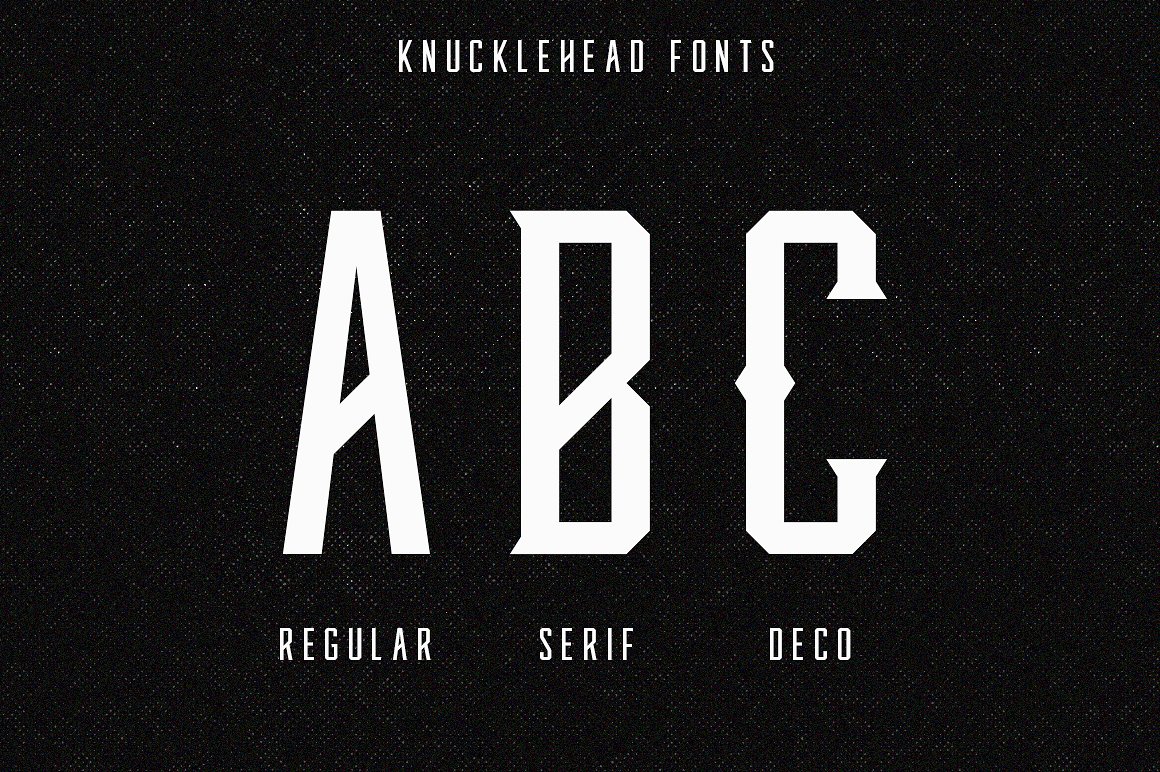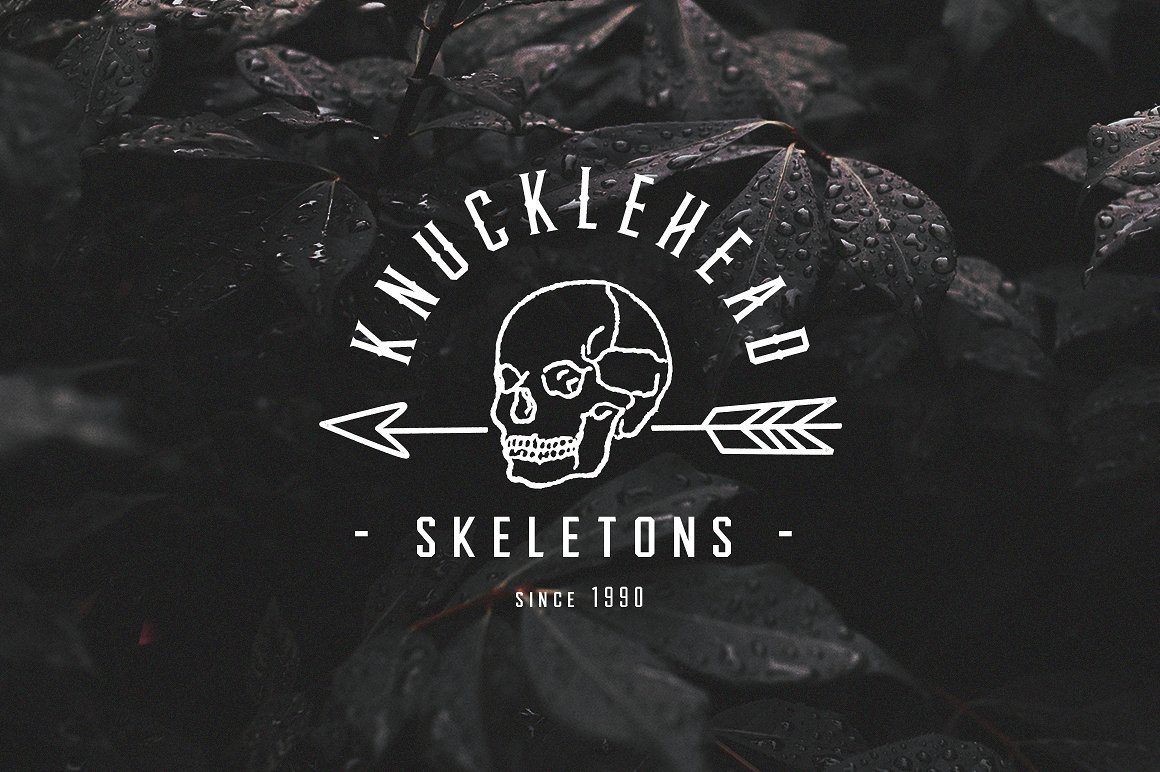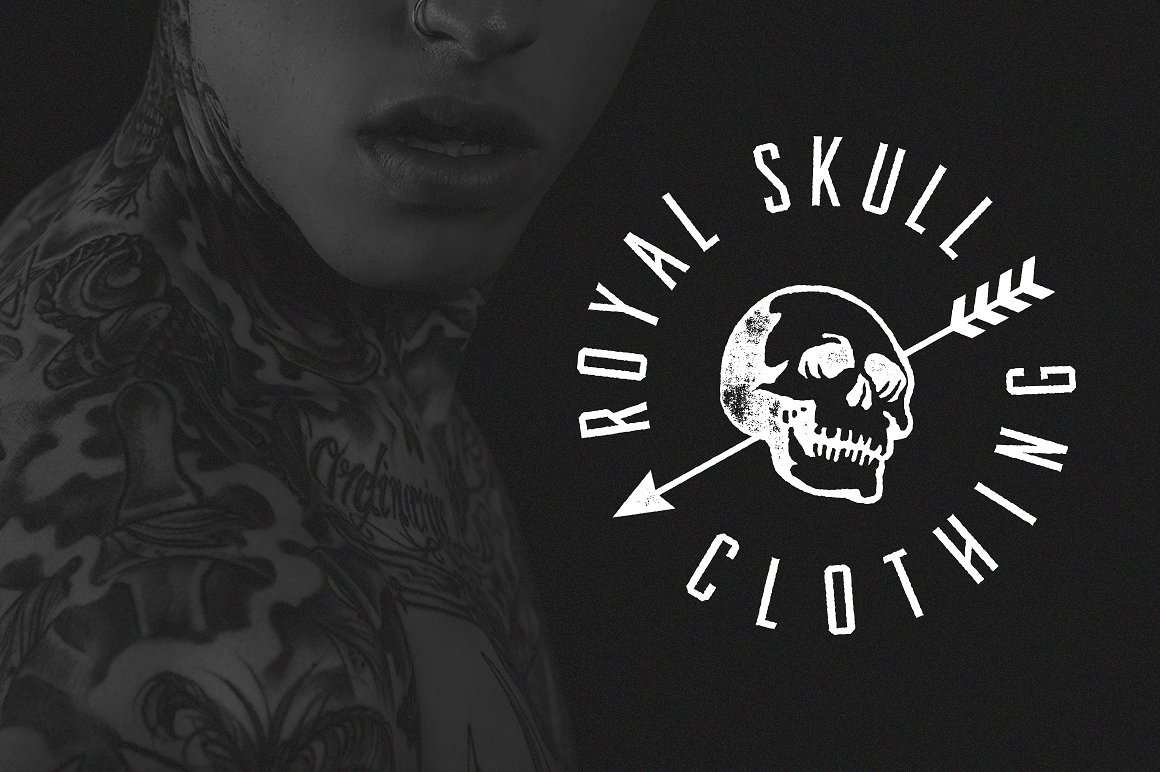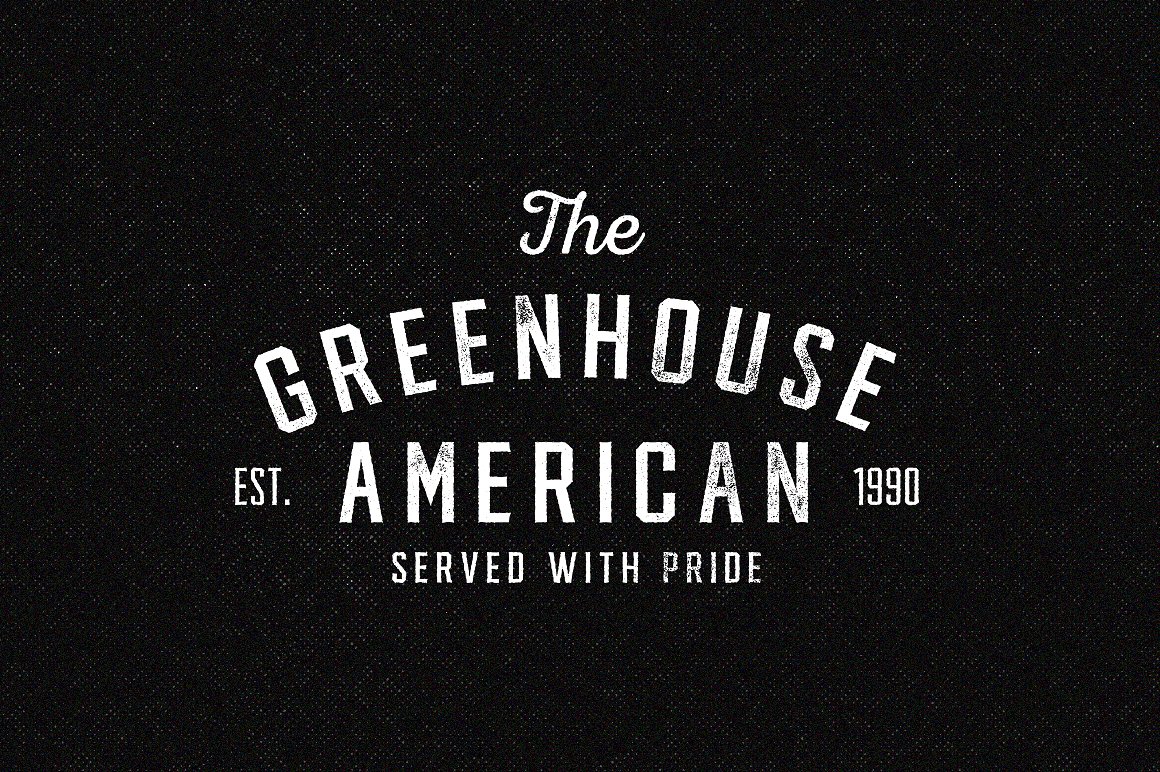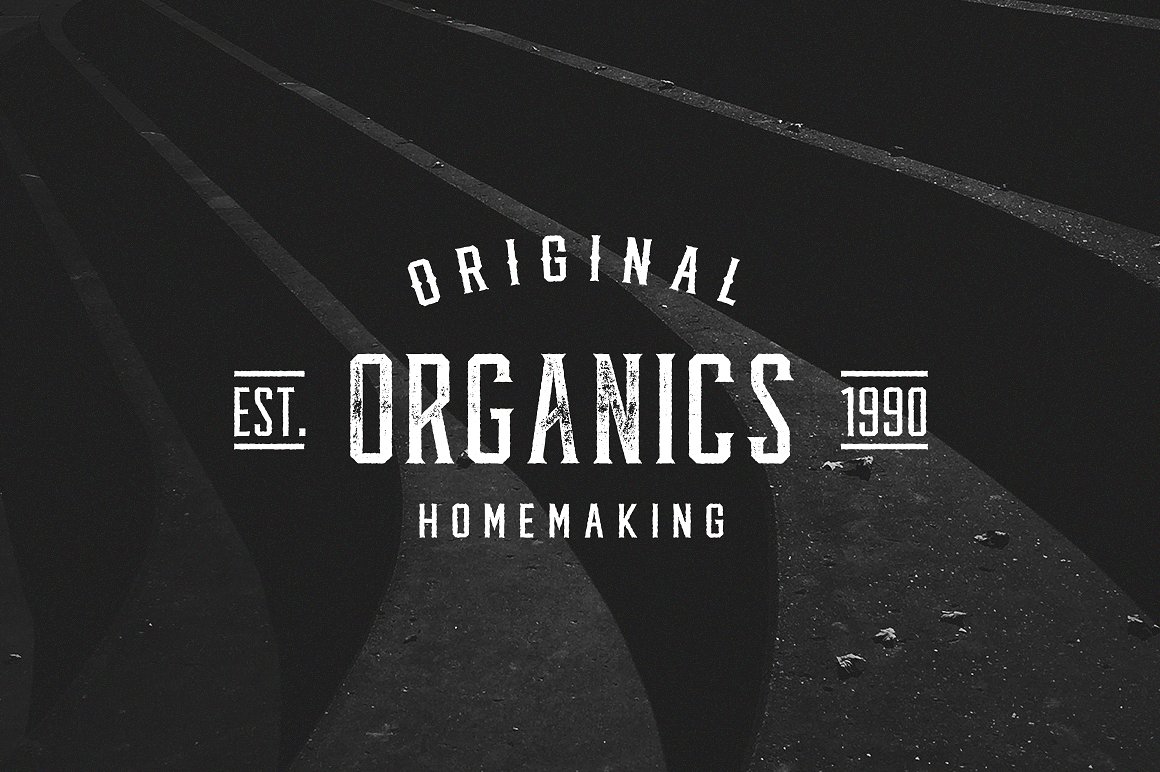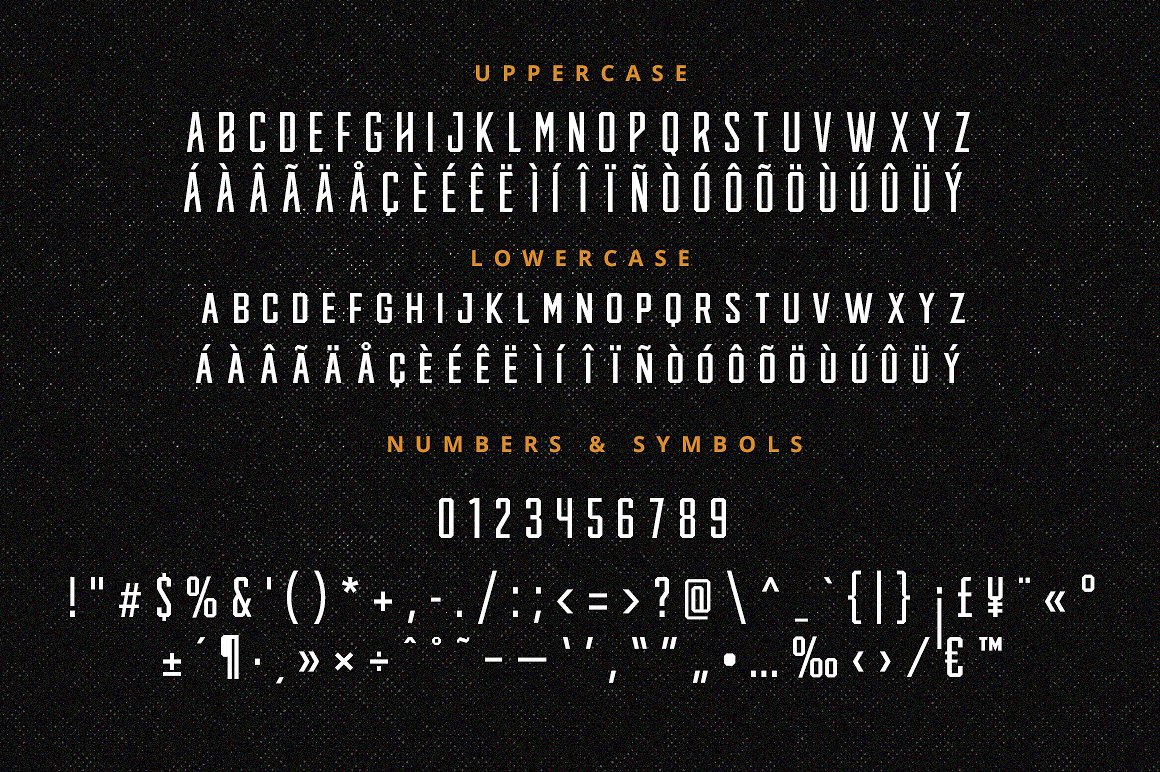
Inspired by american western culture and tattoos, Knucklehead is perfect to use in vintage-themed designs. This font is suitable for any project that requires an old western feel as the core design elements, such as logos, wedding invitations, greeting cards, posters, etc. Knucklehead was designed by Mcraft. Download the free demo beneath the previews: